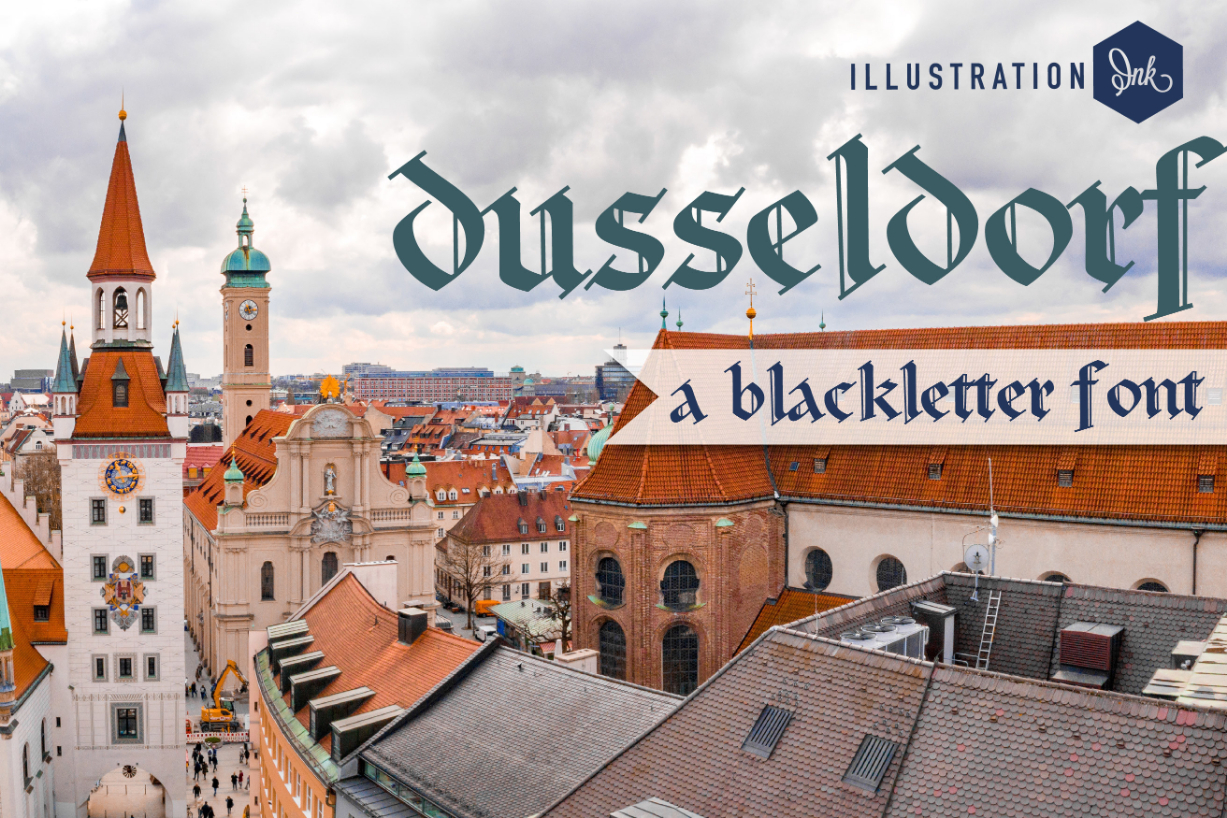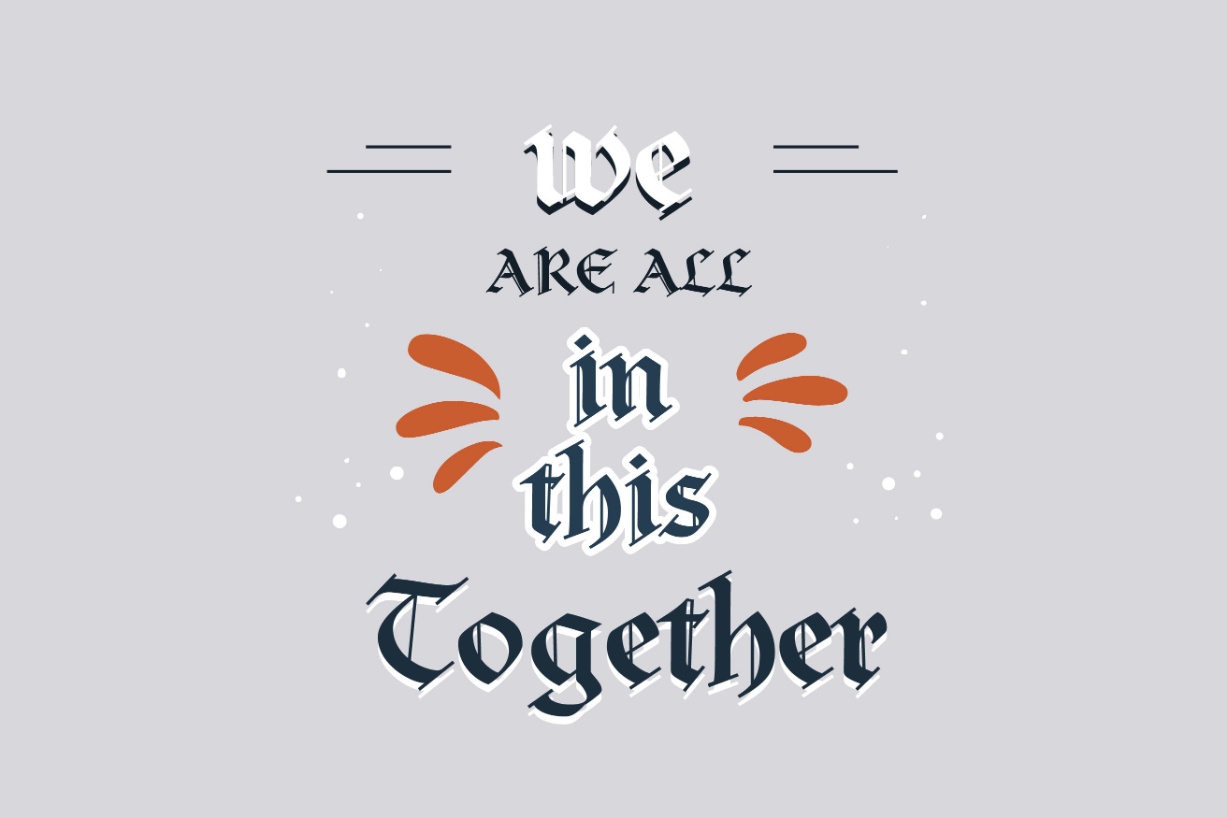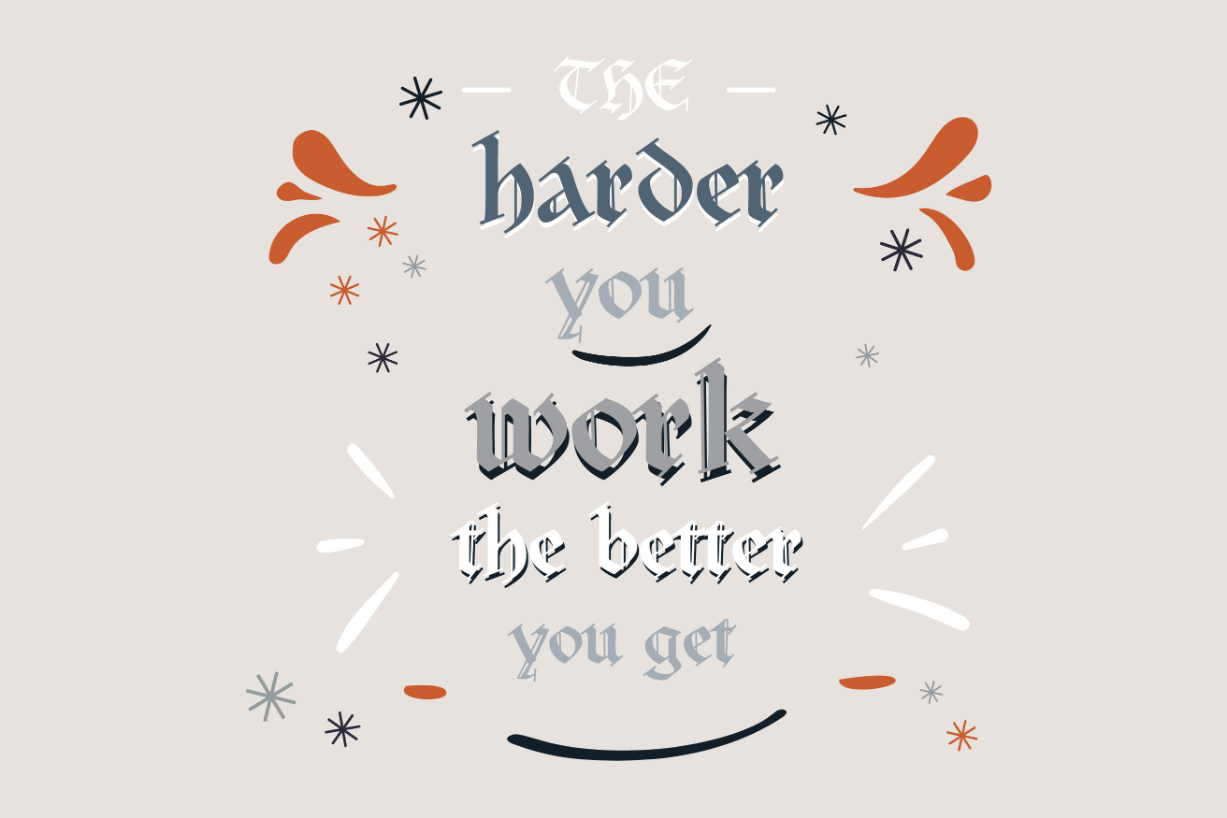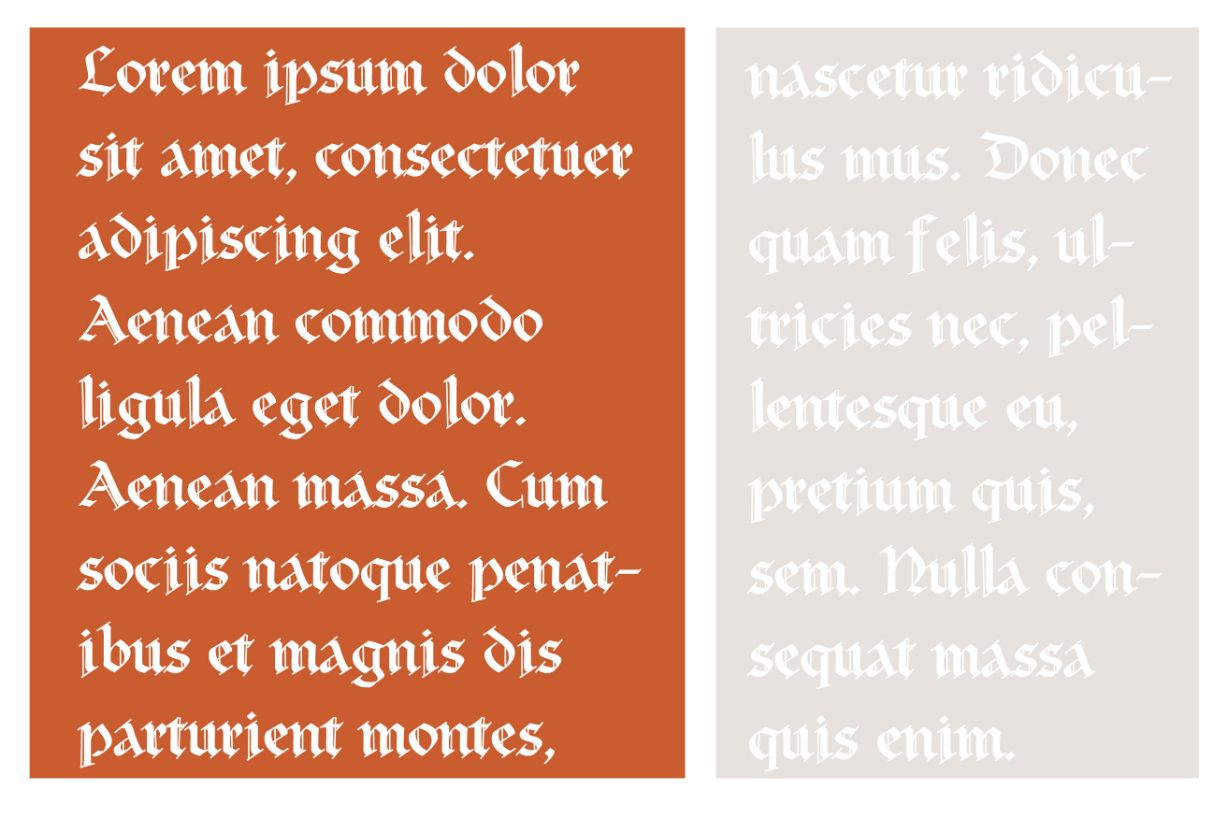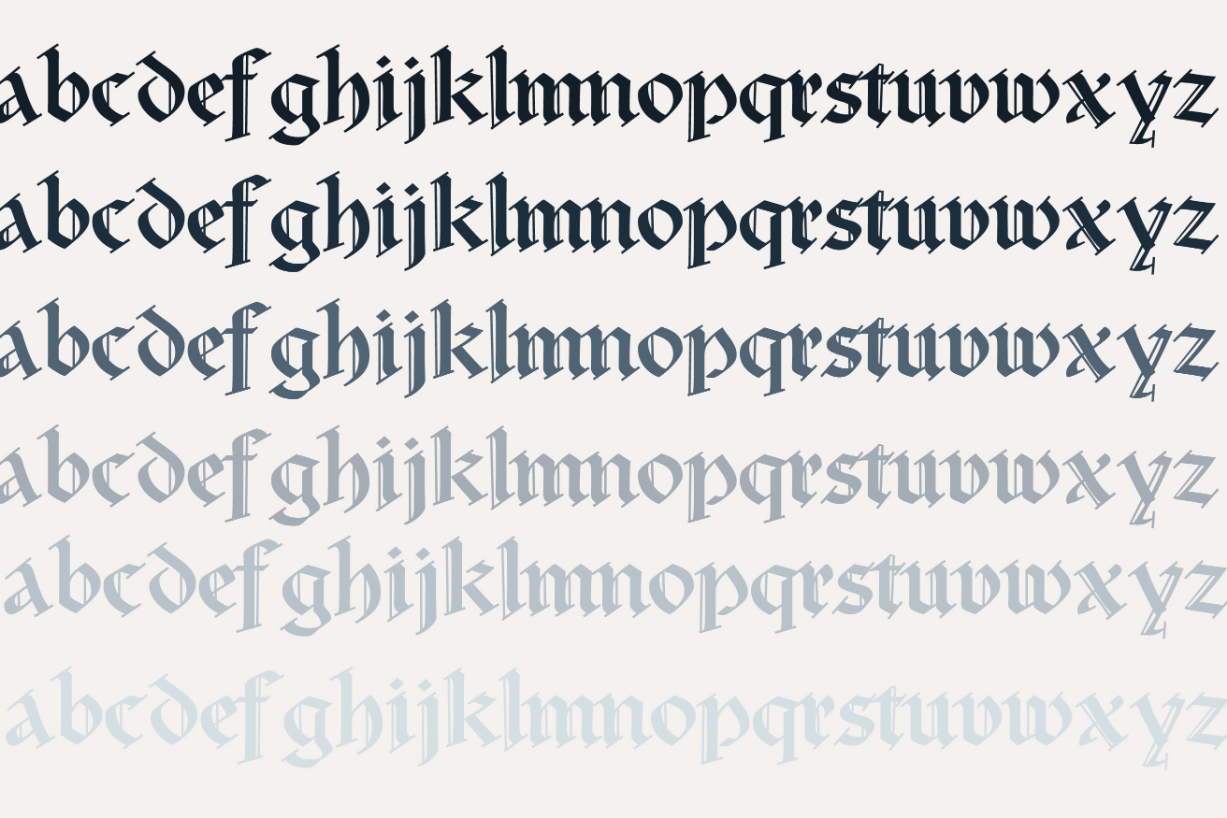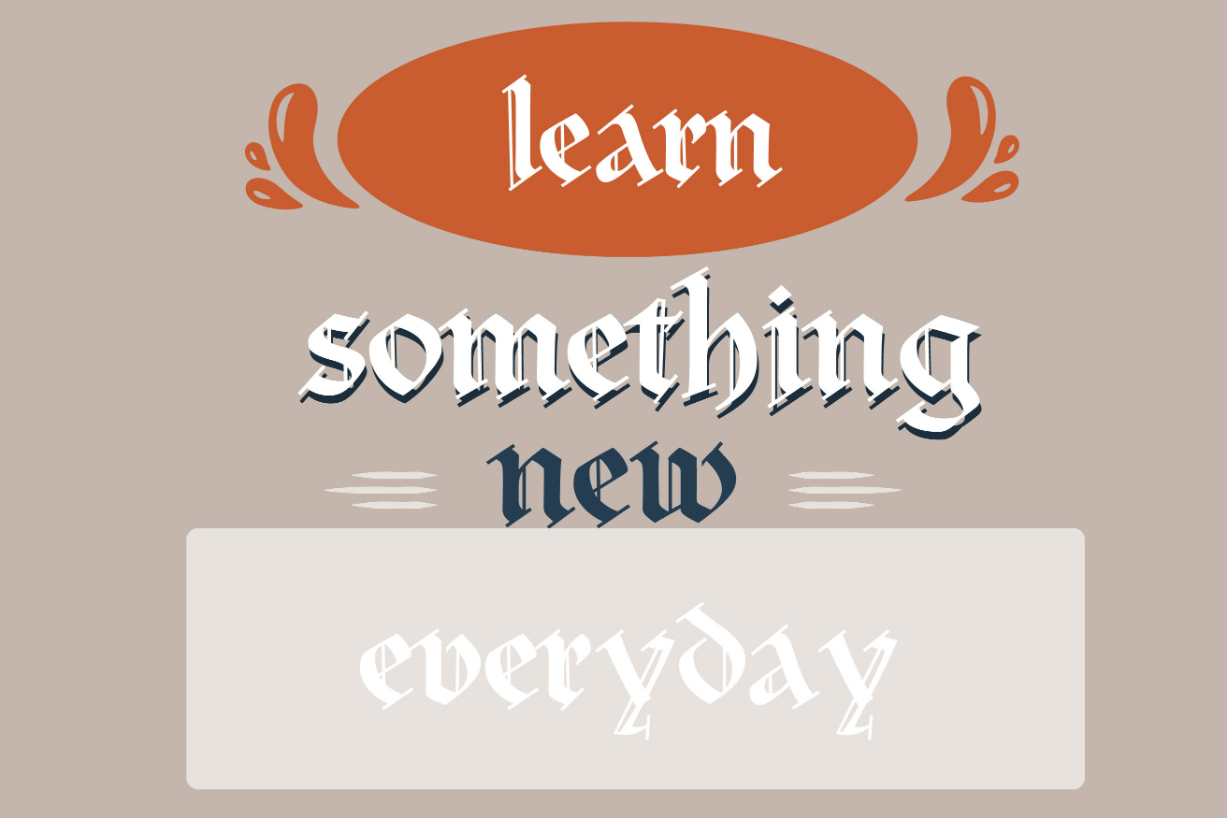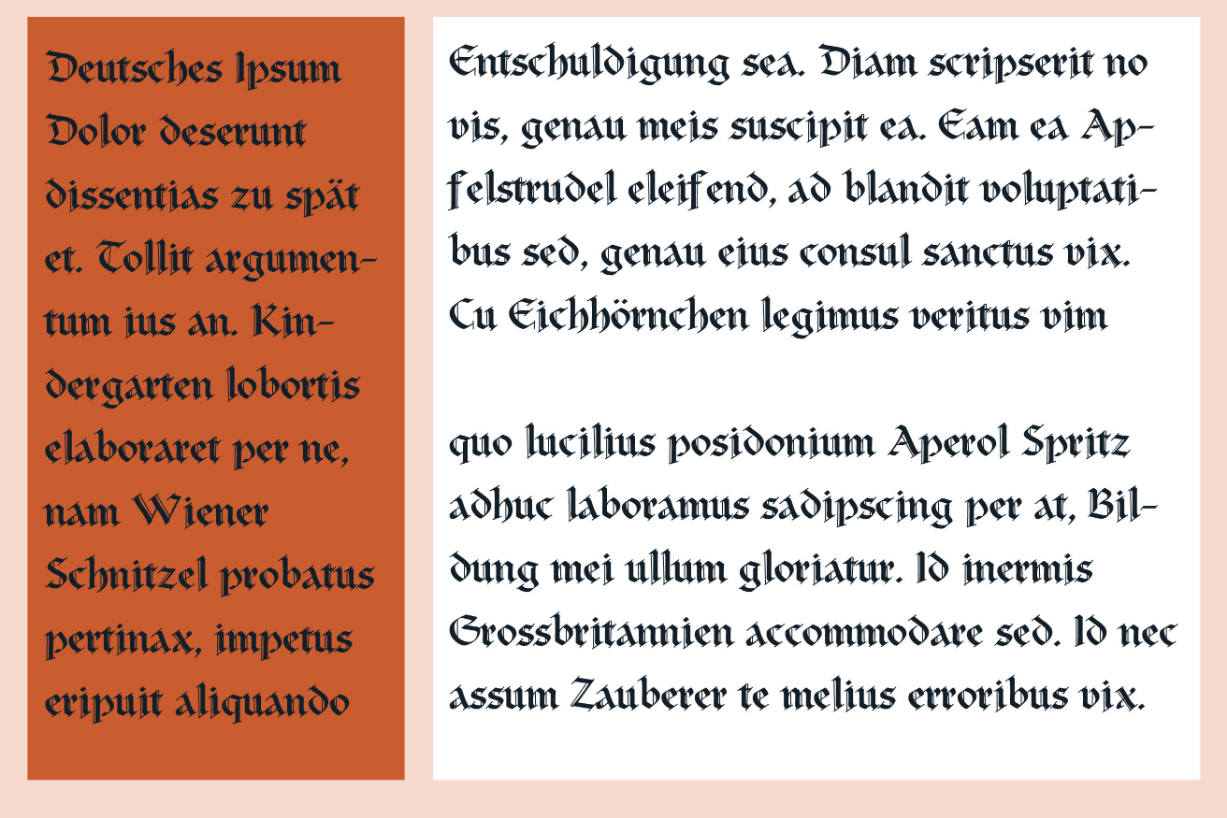
Dusseldorf Font
About Dusseldorf Font
This old-school, blackletter font is a hand-crafted old European calligraphy. Add it confidently to your projects, and you will love the results.